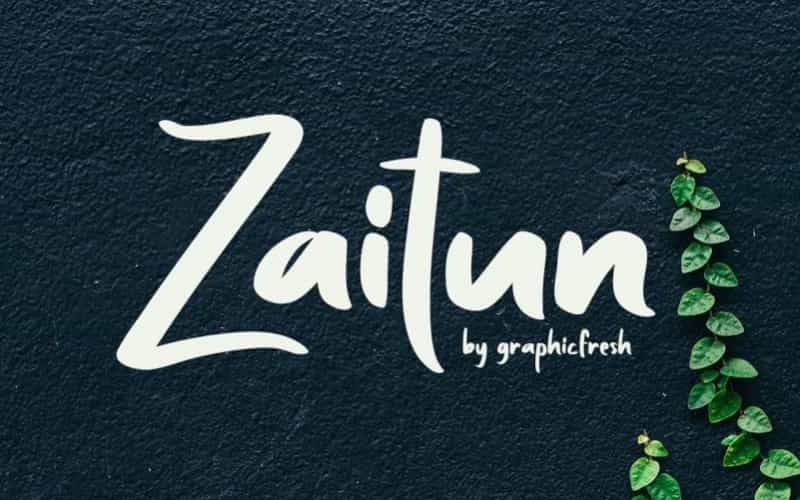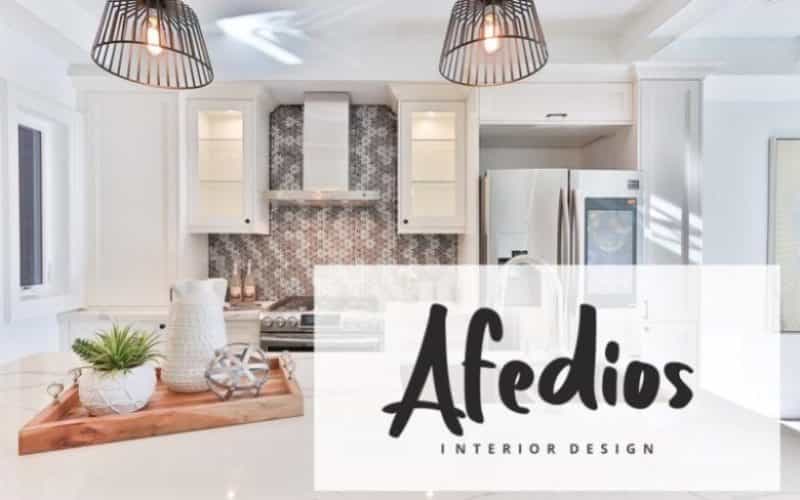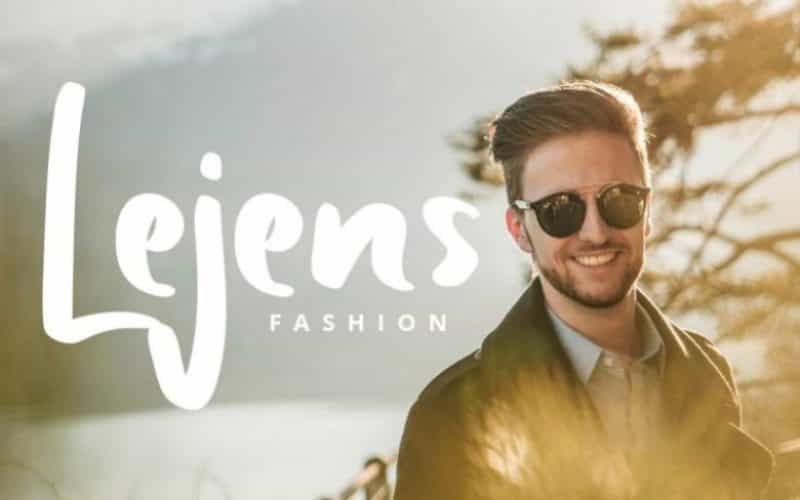
Discover Zaitun Nature Branding Font, part of the Commercial Brush collection—a versatile and unique font perfect for adding a personal touch to your projects. Download it for free and enjoy crafting designs with style, from invitations to social media posts. This font is available exclusively for personal use, giving you the freedom to create without limits. Unlock your creativity with Zaitun Nature Branding Font today!
Zaitun Typeface – The font that is both nature and awesome! With a unique style, it is ideal for logos, name cards, magazine layouts, invitations, headers and even large-scale artworks.